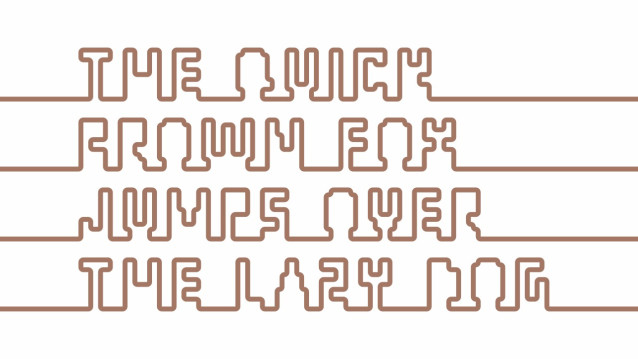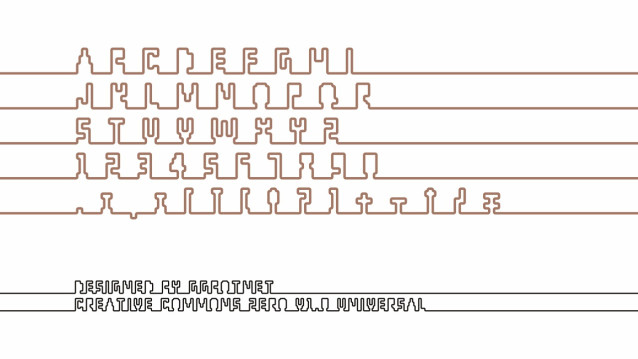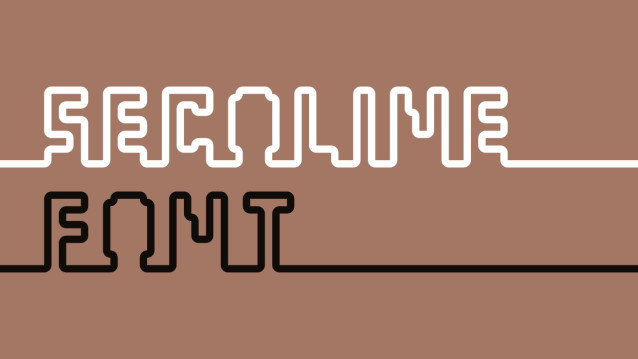
Secoline Font
Secoline Font is a distinctive vintage-style display font designed by GGBotNet, created to make a strong visual statement. With its continuous, single-line construction and artistic letterforms, Secoline stands out as a decorative typeface rather than a traditional text font.
Its retro-inspired design brings a sense of creativity and character, making it ideal for logos, headlines, posters, branding, and artistic graphic projects. Each character feels handcrafted, giving designs a unique and expressive personality.